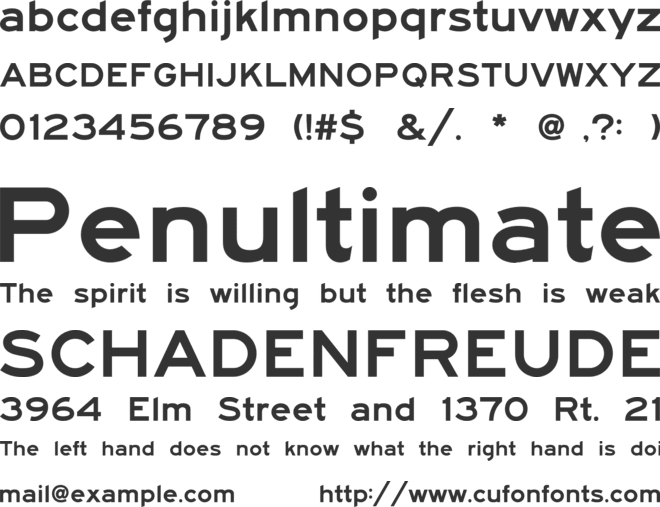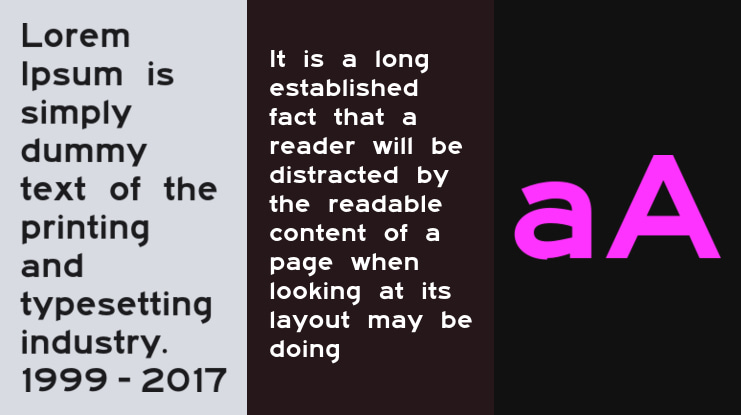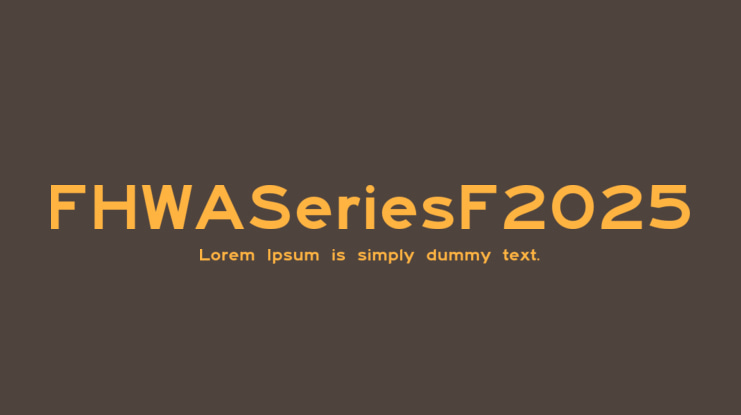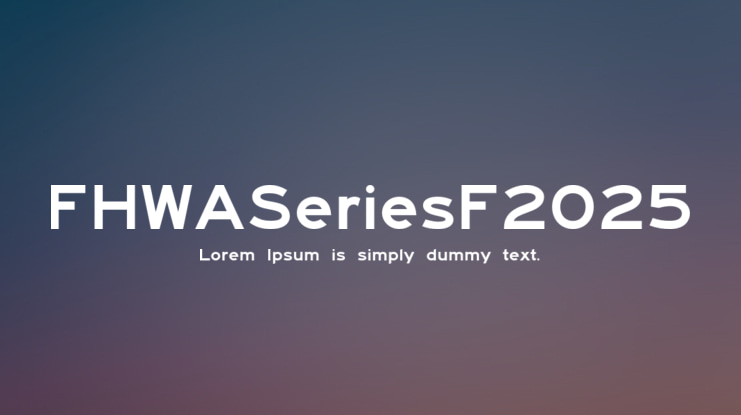
FHWASeriesF2025 Font Family
(Renamed from FHWA Series F 2024 due to an upload issue) Suitable for the creation of official road, street, and highway signage in the US. Public domain outlines from the Federal Highway Administration. Includes recent updates to Β’, $, -, +, and :